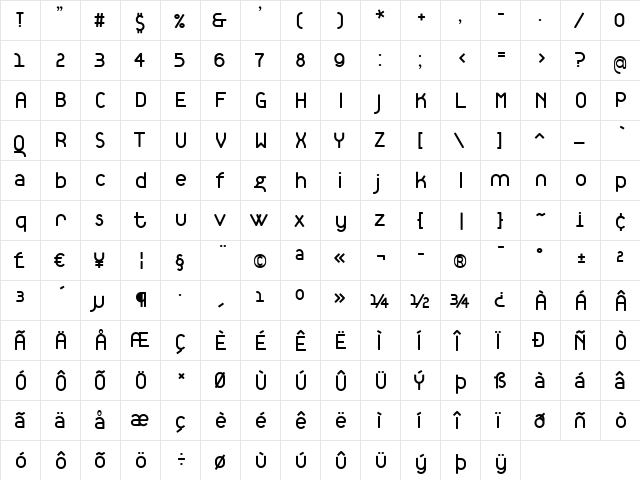
Tantalus Regular
Design Context for Tantalus Typeface
Tantalus takes a measured approach to typography — its balanced proportions and neutral character make it a reliable workhorse for both digital and print work.
Pro Tip: Pair Tantalus with a font of contrasting weight or personality to build a more expressive typographic hierarchy.